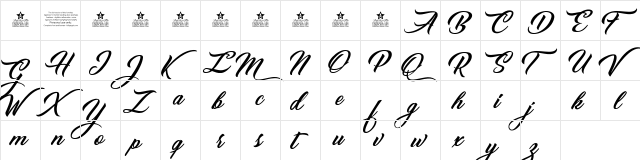
Messenger Pigeons Personal Use Regular Font Preview
Messenger Pigeons Personal Use Regular
Messenger Pigeons Personal Use Regular Font Details
| Foundry | Billy Argel |
| Designer | Billy Argel |
Design Context for Messenger Pigeons Personal Use Typeface
Messenger Pigeons Personal Use is a composed and adaptable typeface that performs quietly and consistently across a wide range of design contexts.